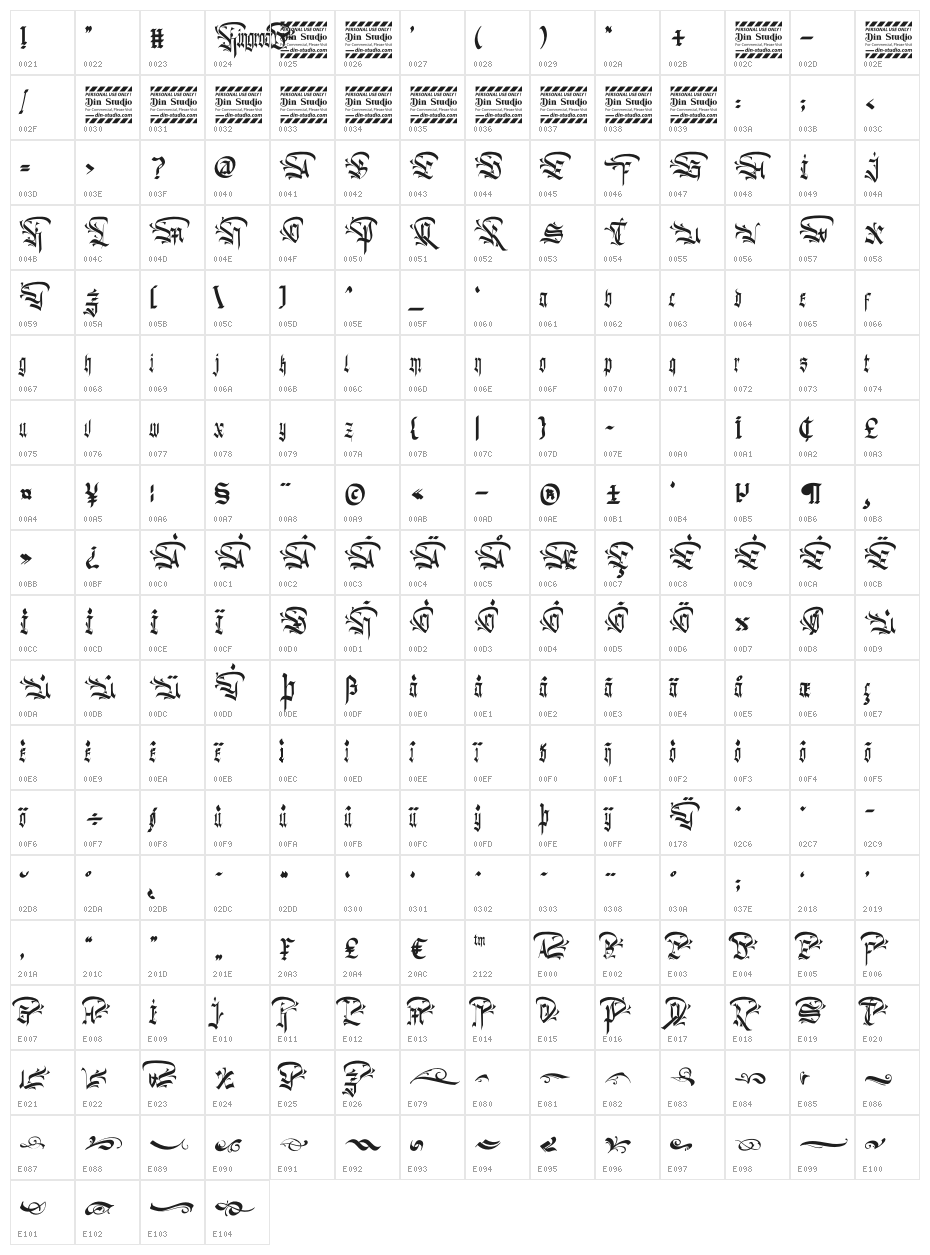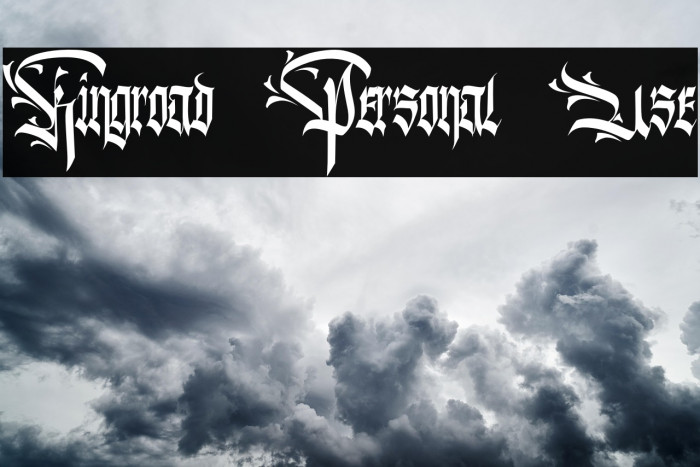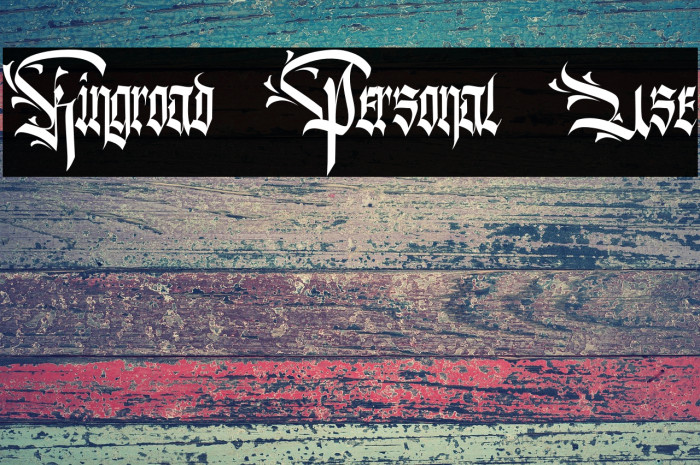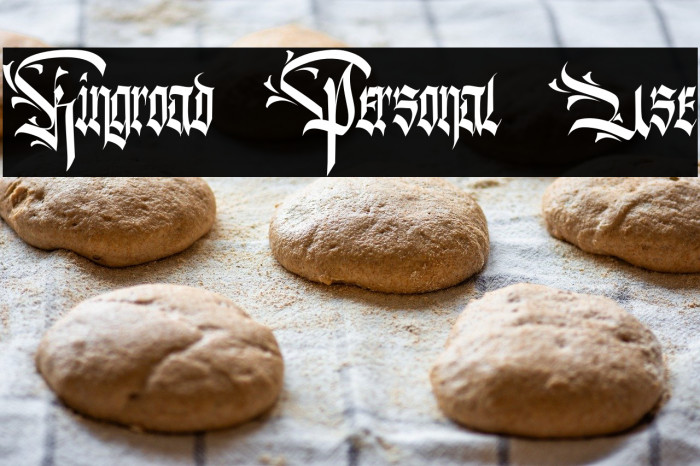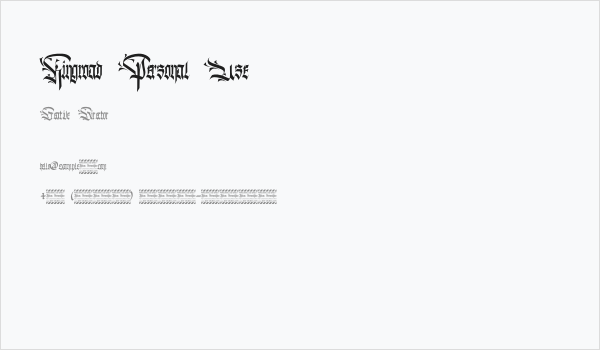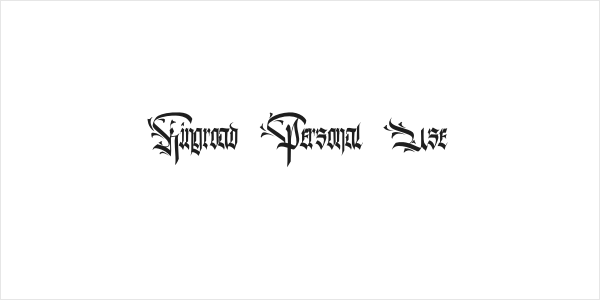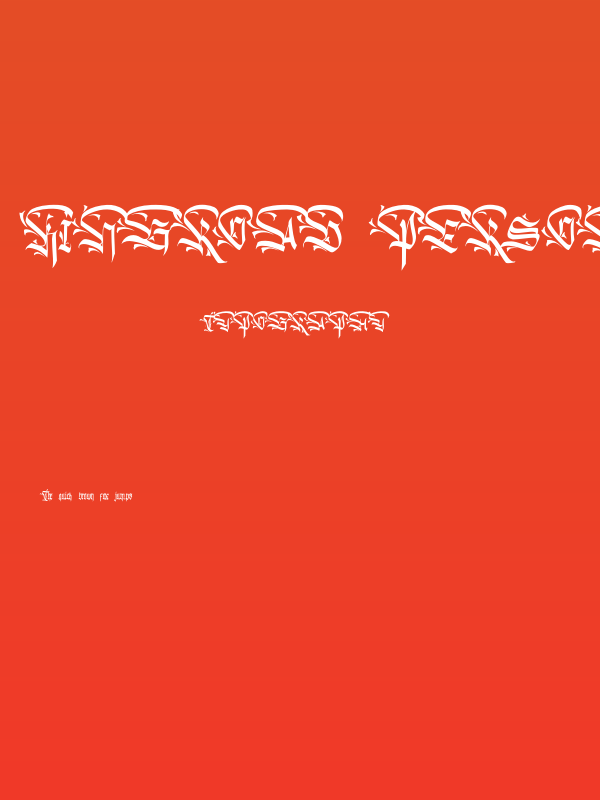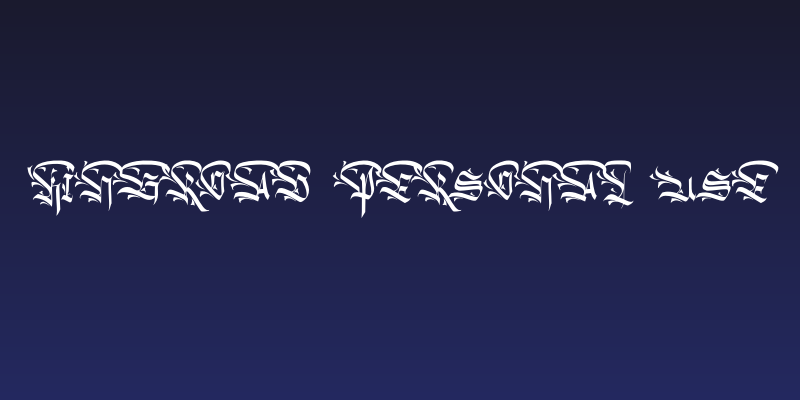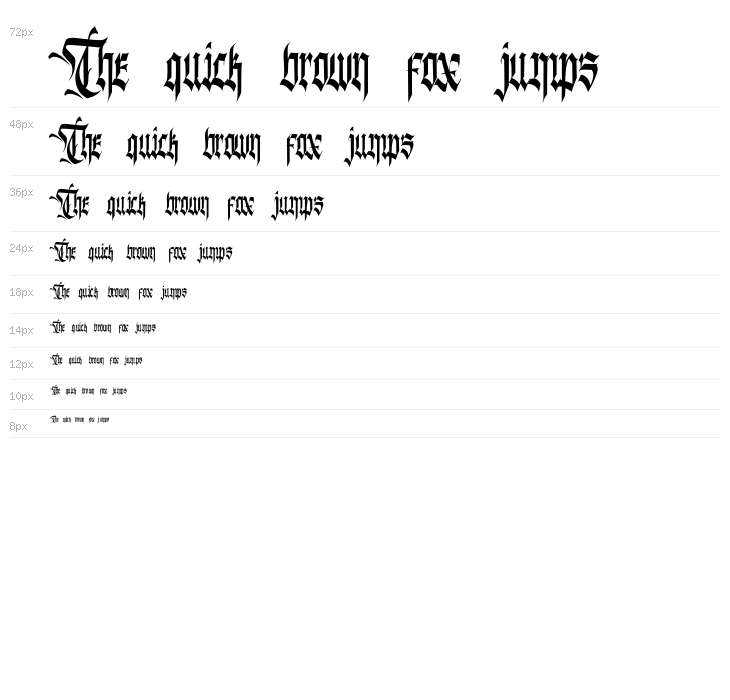
Kingroad Personal Use Font
Kingroad Personal Use Description
This font features a striking and intricate design, reminiscent of traditional calligraphy with a modern twist. The uppercase letters are bold and ornate, with sharp angles and flourishes that give them a dramatic appearance. The lowercase letters maintain a similar style, though slightly more subdued, allowing for readability while still retaining the decorative elements. The numbers and special characters follow the same aesthetic, ensuring a cohesive look across all glyphs. This font's unique style makes it ideal for projects that require a touch of elegance and sophistication.
| Proposed Projects | Ideal for tattoo designs, gothic-themed posters, album covers, and branding that requires a dramatic flair. |